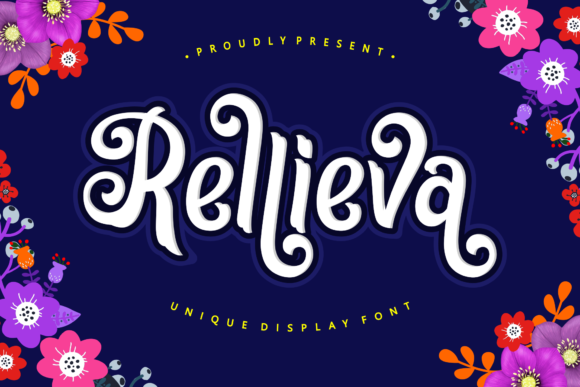
Behold, Rellieva – a display font brimming with charm and playfulness, meticulously crafted by the artistic hands at Holydie Studio. This captivating font exudes a warm and inviting persona, making it the perfect choice for adding a touch of whimsy to your creative projects.
Rellieva's graceful curves and playful swashes dance across the page, evoking a sense of childlike wonder and joy. Each letterform is a work of art, meticulously designed to create a cohesive and visually striking font family. Whether you're a seasoned designer or just starting out, Rellieva's user-friendly nature makes it accessible to all.
Unleash your creativity and let Rellieva transform your designs into masterpieces. Its versatility shines in various applications, from eye-catching headlines and logos to enchanting invitations and greeting cards. Imagine your words adorned with Rellieva's elegant swashes, adding a touch of magic to every project.
With Rellieva, you'll discover a font that not only captivates your audience but also sparks your imagination. Its friendly and inviting demeanor makes it an ideal choice for projects that aim to connect with audiences on a personal level. Experience the joy of creating designs that resonate with your audience, leaving a lasting impression that speaks volumes.
Embrace Rellieva's versatility and witness how it effortlessly elevates your designs to new heights. Its adaptability knows no bounds, seamlessly complementing a wide range of styles and themes. From vintage-inspired designs to modern and contemporary aesthetics, Rellieva blends seamlessly, adding a touch of sophistication and charm.
Make Rellieva your font of choice and embark on a creative journey where your ideas take center stage. Let your imagination soar as you create designs that captivate and inspire, leaving an indelible mark on the hearts of your audience. Rellieva is more than just a font; it's an invitation to explore the boundless realm of creativity.